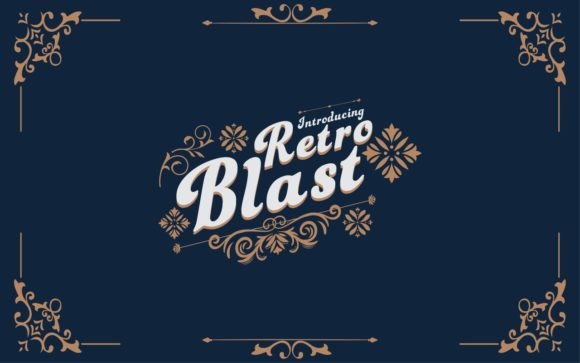
Embark on a groovy adventure with Retro Blast, a display font that evokes the electric spirit of the swinging 70s. Step into a world of flared pants, platform shoes, and disco balls as this font captures the essence of retro charm. With its vibrant personality, Retro Blast breathes life into your designs, adding a touch of nostalgia and flair. Unleash your creativity and transport your audience to the era of bell bottoms and boogie nights.
Crafted with precision and passion, Retro Blast's dynamic letterforms dance across your designs, exuding energy and vibrancy. Its playful curves and bold lines pay homage to the retro era, while its disco-inspired details add a touch of funk and soul. Whether you're creating vintage-inspired logos, designing eye-catching posters, or crafting retro-themed branding, Retro Blast is your ultimate choice.
Immerse yourself in the groovy vibes of the 70s as Retro Blast takes you on a journey through time. Its expressive letterforms bring your words to life, adding a touch of nostalgia and flair to every project. Let Retro Blast add a touch of retro magic to your designs, captivating your audience with its timeless appeal.
With Retro Blast, you'll stand out from the crowd, making a bold statement that resonates with those who appreciate the golden era of disco. Your designs will dance with energy, capturing the spirit of the 70s and leaving a lasting impression on your audience. Embark on this groovy journey today and let Retro Blast ignite your creativity.